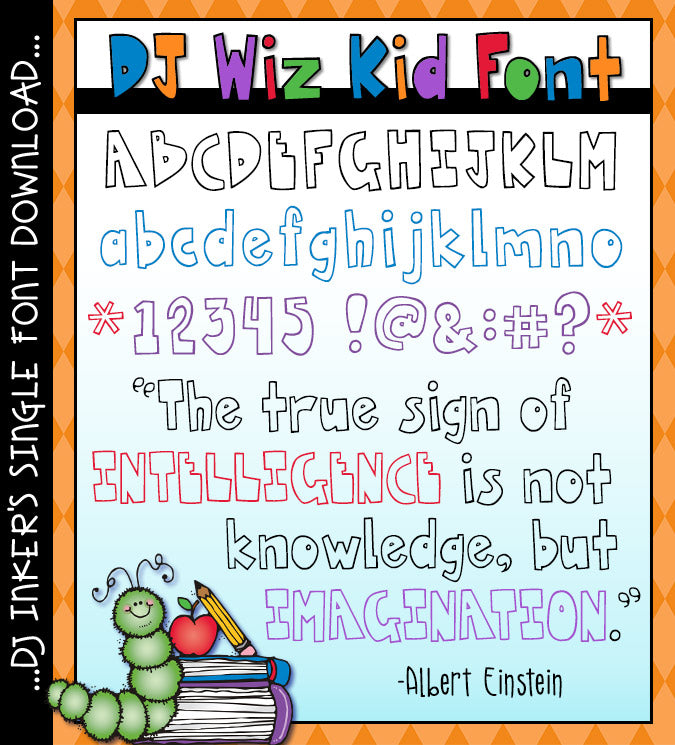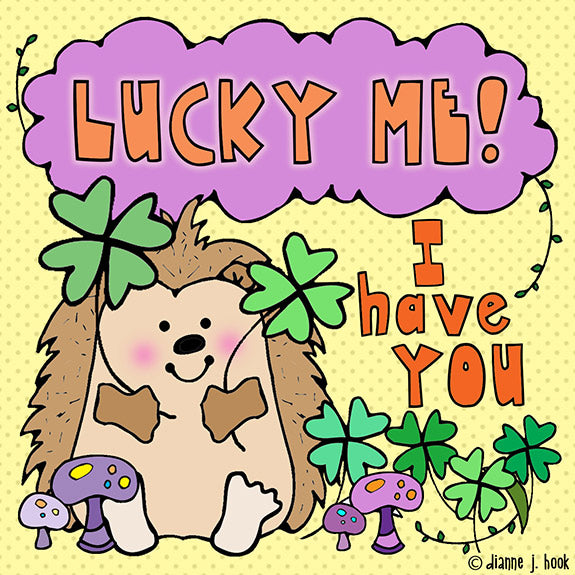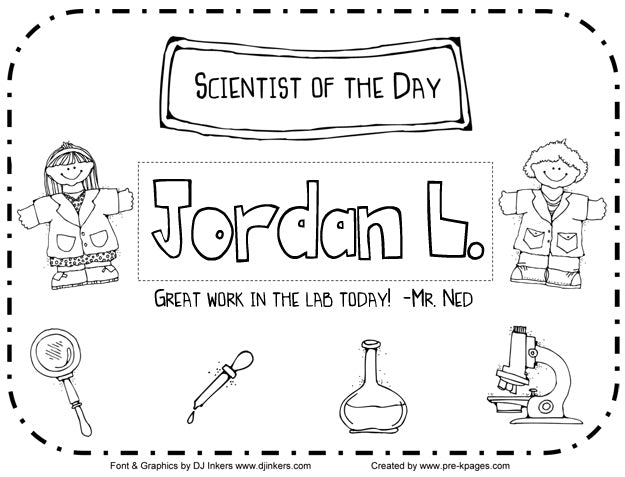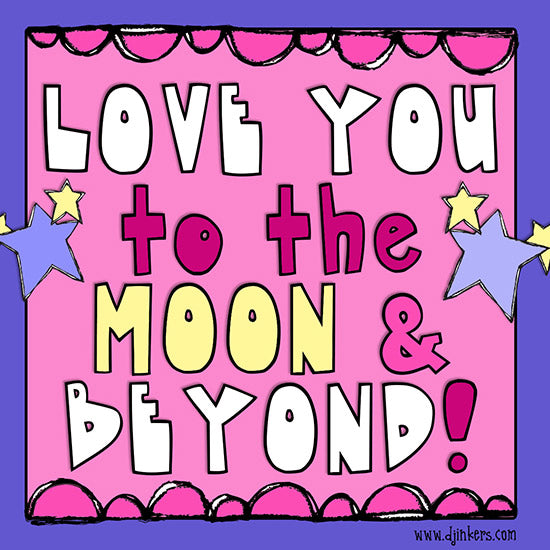
DJ Wiz Kid Font Download
You don't have to be a Wiz Kid to make your projects look FUN & imaginative...
just use a cool DJ font like this one! (Plus it's easy to read... so it's
great for projects at school or work.) Use DJ Wiz Kid for posters,
headlines, nameplates, fliers, banners and smiles.